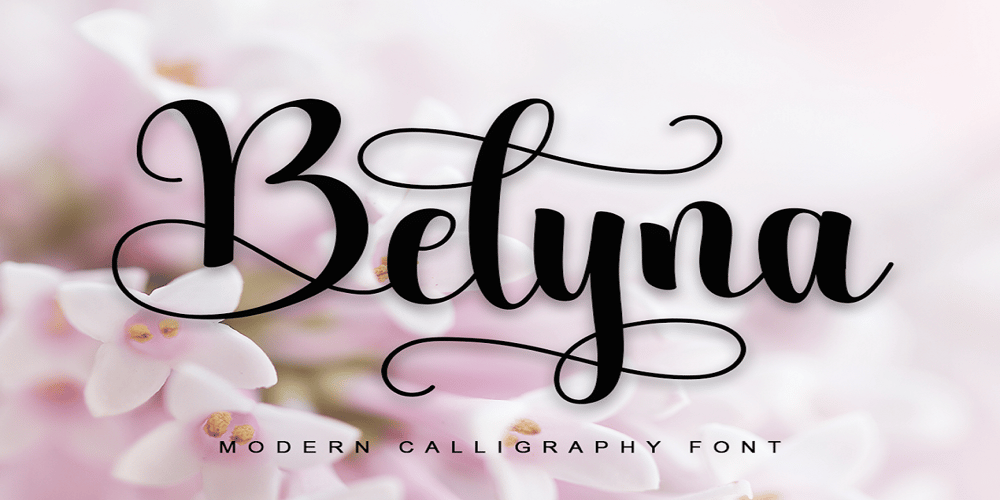
Belyna Font Family was designed by Saiful Anwar and published by Sealoung. Belyna contains 1 styles and family package options. Belyna is a dazzling script font with a lovely atmosphere and spotless form, inspired by timeless classic calligraphy. Not too thin and not too thick, balanced and varied, Belyna was designed to enhance the beauty of your projects.This font is PUA encoded which means you can access all of the glyphs and swashes with ease!